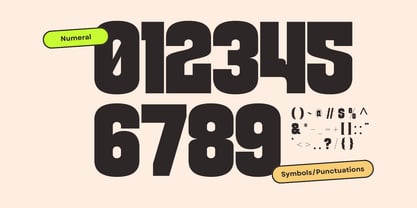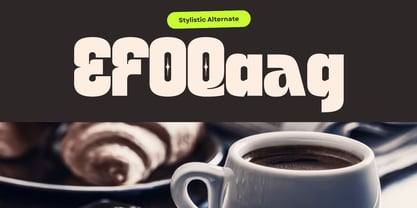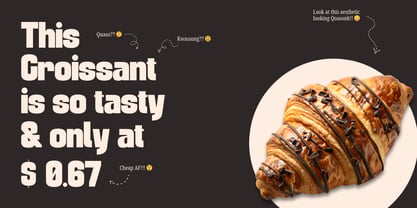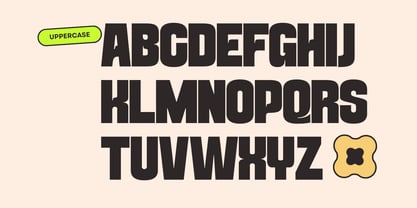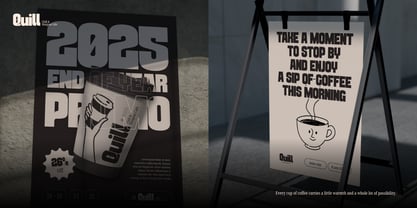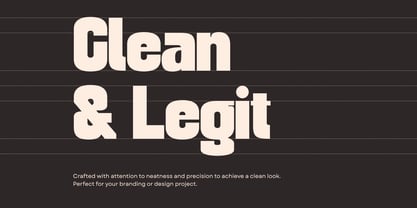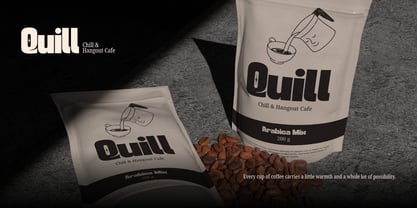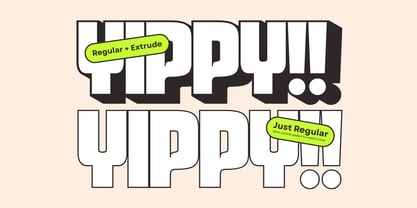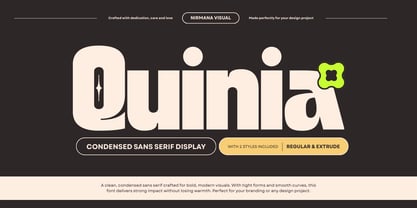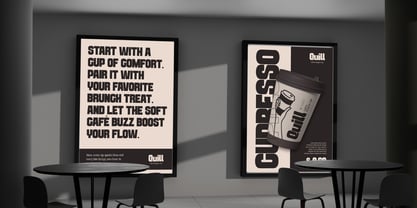
Quinia Retro
by Nirmana Visual
The Quinia Retro Font Family was designed by Sigit Dwipa and published by Nirmana Visual. Quinia Retro contains 2 styles and family package options. More about this family
Quinia Retro is a playful food-inspired font crafted with warm, nostalgic charm. Available in Regular and Extrude, it delivers a deliciously bold look perfect for coffeeshop branding, menus, packaging, and storefront signage. Its rounded retro curves add a cozy, inviting feel that enhances any culinary or beverage identity, making your brand stand out with friendly vintage character.